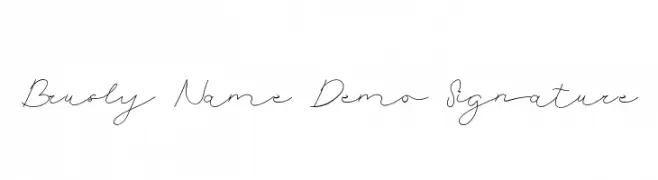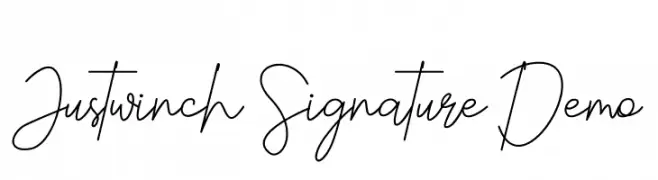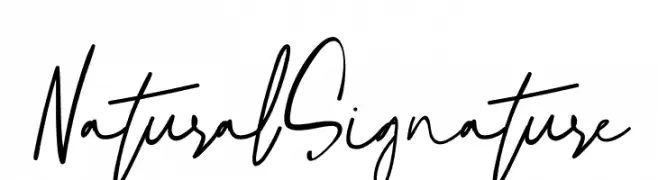
A graceful script font with a handwritten signature style.
An elegant, flowing script font with a handwritten signature style.
A cursive, handwritten font with a signature-like style.
A handwritten, cursive font with an elegant and personal signature style.
A sophisticated, elegant handwritten font with a signature-like style.
A flowing, handwritten font with a signature-like style.
A cursive, signature-style font with elegant, flowing strokes.
An elegant, cursive italic font with a handwritten style.
A delicate, flowing script font with a handwritten signature style.
A fluid, handwritten font with a natural, signature-like style.